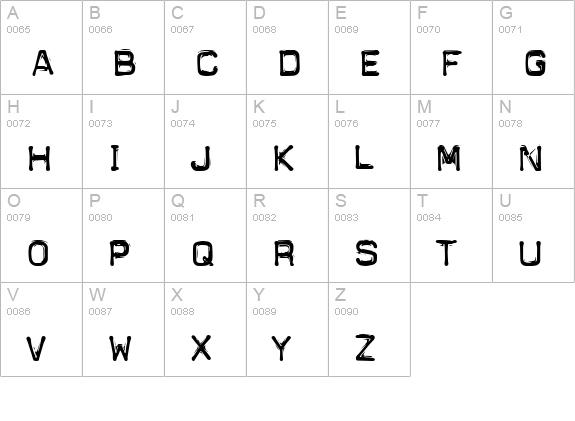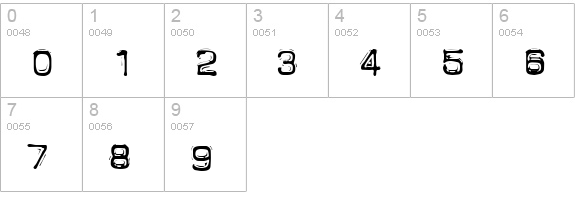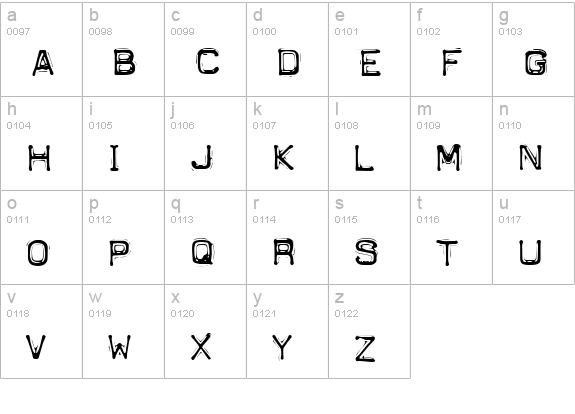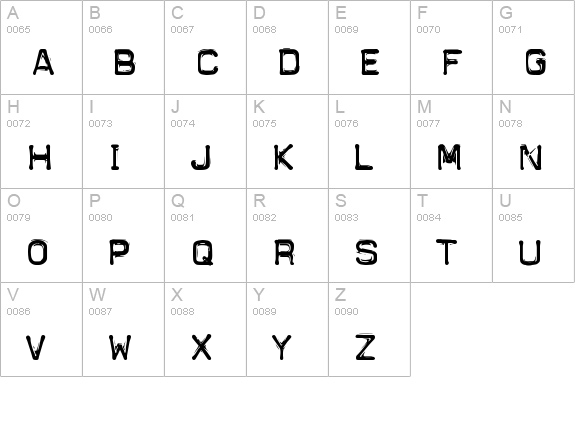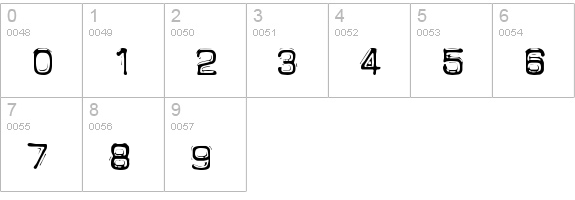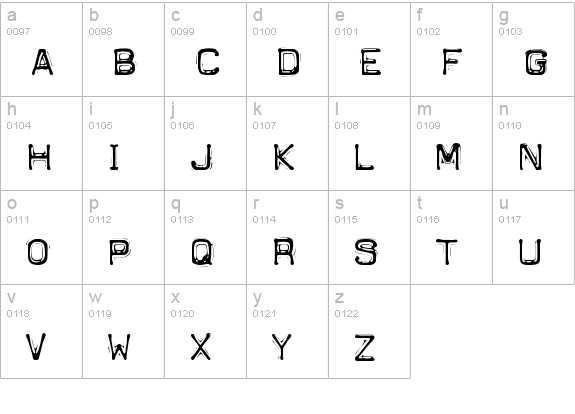
PFTapeomatic Low Pressure Font Details
Introducing PFTapeomatic Low Pressure font, a unique and modern typeface designed to make a statement. This font features a sleek and futuristic design, perfect for adding a contemporary touch to any project. With its low-pressure style, PFTapeomatic exudes a sense of sophistication and elegance. What's even better is that this font is available for free download at FontsMarket.com, making it accessible to everyone looking to elevate their design game. Whether you're working on branding, advertising, or any other creative project, PFTapeomatic Low Pressure font will surely stand out and leave a lasting impression. Upgrade your design arsenal today with this striking and versatile font.